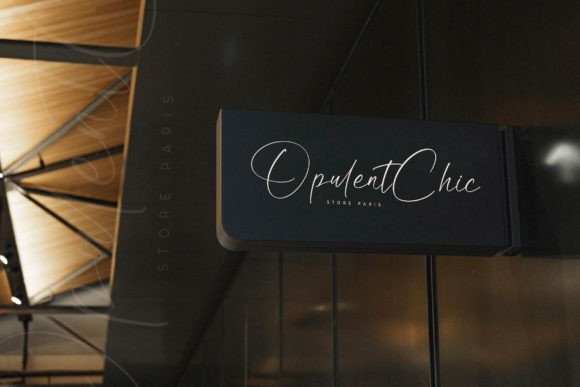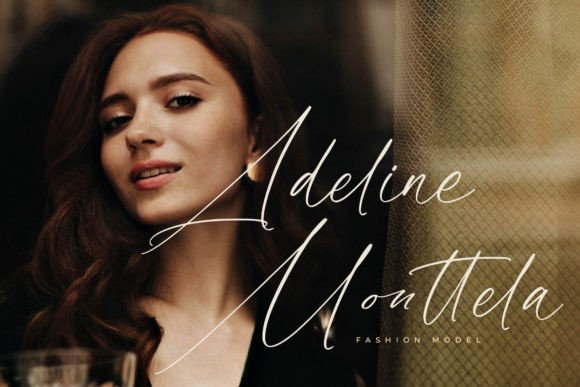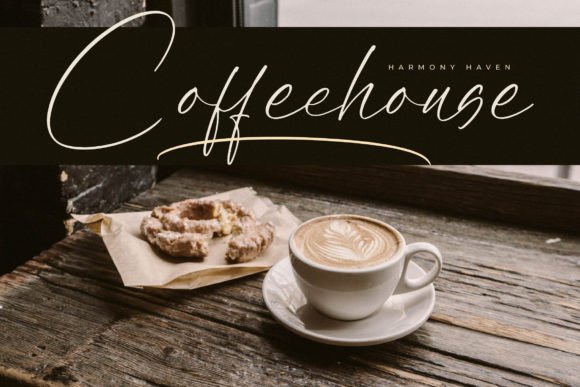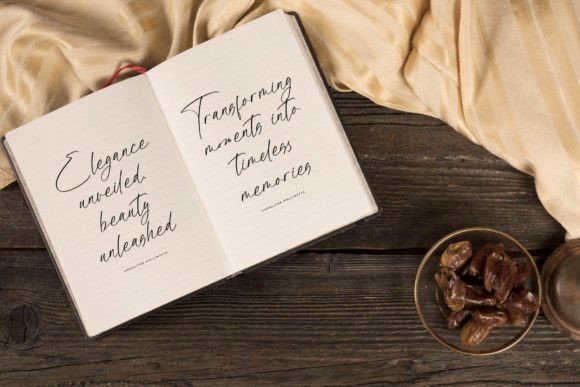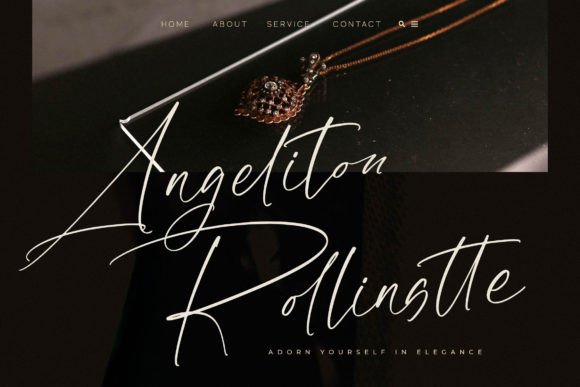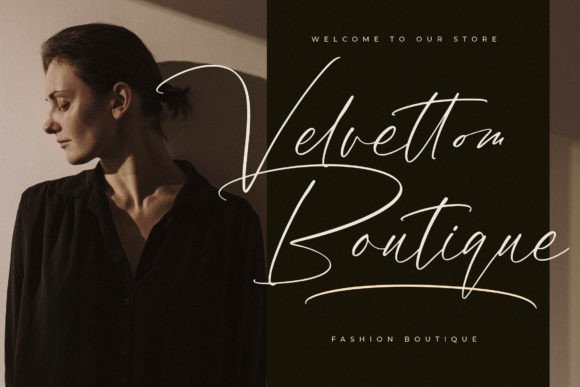
Introduction to Boulevard Goleriales Font
Do you ever find yourself scribbling down a brilliant idea on a napkin, or jotting down a quote in a notebook that sparks inspiration for your next creative project? Those moments of clarity are what drive us as designers, and having the right design resource can make all the difference. That’s where the Boulevard Goleriales Font comes in – a stunning luxury script font that’s perfect for adding a touch of elegance to your next project.
Whether you’re working on a high-end branding project or a simple greeting card, Boulevard Goleriales Font offers the perfect blend of sophistication and style. With its high-quality design and transparent background, this font is a valuable addition to any designer’s toolkit. And the best part? It’s available for free download, making it an accessible resource for designers of all levels.
From logos and branding projects to homeware designs and product packaging, Boulevard Goleriales Font is the perfect choice for any luxury project that requires a touch of class. In this article, we’ll take a closer look at what makes this font so special and how you can use it to elevate your next creative project.
Key Features of Boulevard Goleriales Font
- Includes multiple font styles and weights for versatility
- Supports various languages, making it a great design resource
Honest Review: Boulevard Goleriales Font
As a designer, I’m always on the lookout for high-quality design resources to elevate my creative projects. The Boulevard Goleriales Font caught my attention, and I decided to give it a try.
- ✨ Elegant and modern design aesthetic, perfect for minimalist and luxury-themed projects.
- ✨ High-quality font files with smooth and precise rendering.
- ✨ Suitable for both digital and print-based applications.
- ⚠️ The font doesn’t support a transparent background, which might be a drawback for some designers.
- ⚠️ The font family is limited to a single style, which might not be ideal for projects requiring multiple font variations.
Overall, the Boulevard Goleriales Font is a great addition to any designer’s toolkit. While it has some limitations, its high-quality design and modern aesthetic make it a valuable resource for creative projects. Plus, it’s free to download, which is always a bonus. If you’re looking for a reliable and stylish font, I’d definitely recommend giving it a try.
Boulevard Goleriales Font is a high-quality design resource ideal for creative projects. This versatile font offers a transparent background, making it perfect for various applications.
To get the most out of Boulevard Goleriales Font, use it in combination with other high-quality design resources. Experiment with different font sizes and styles to achieve a unique look.
Boulevard Goleriales Font is ideal for:
- Branding and logos.
- Business cards and stationery.
- Web design and digital marketing.
Alternatives to Boulevard Goleriales Font
The Great Vibes Font is a beautiful, elegant script font perfect for creative projects requiring a touch of sophistication. It’s ideal for use in logos, invitations, and other design elements that need a high-end feel. Great Vibes Font is free to download and offers a transparent background, making it easy to integrate into your design.
Compared to Boulevard Goleriales Font, Great Vibes Font has a more refined and delicate appearance, making it suitable for projects that require a subtle yet elegant touch.